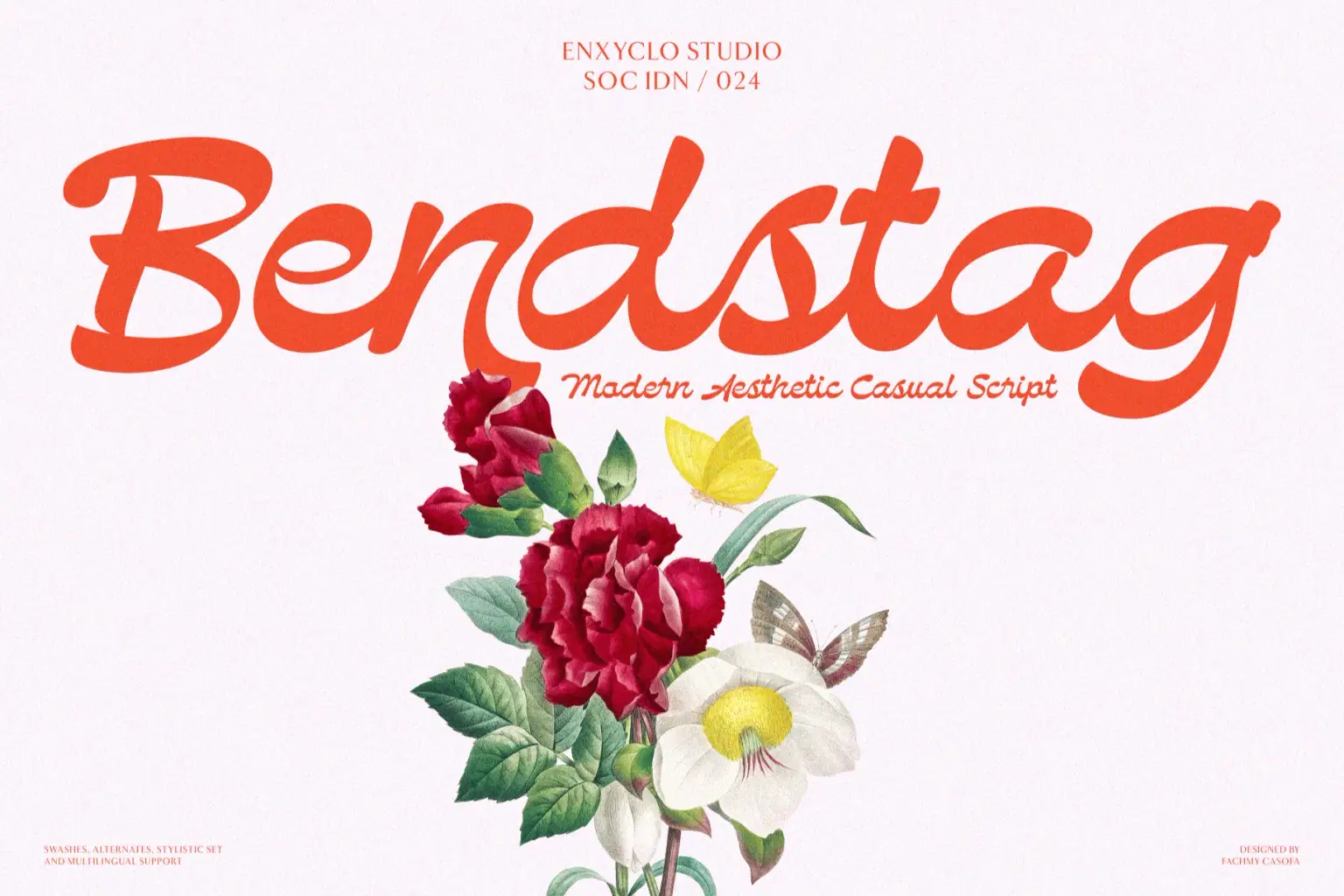
NCL BENDSTAG is a timeless modern bold script font created to bring together luxury, elegance, and confident visual expression. Designed with flowing curves and bold strokes, this typeface delivers a perfect harmony between graceful movement and strong character. The result is a lavish and premium script font that feels rich, stylish, and effortlessly sophisticated. Crafted for modern brands that seek distinction, NCL BENDSTAG transforms typography into a refined statement of identity. Its bold script style creates an eye-catching presence while maintaining a smooth and elegant rhythm, making it ideal for logo design, fashion branding, boutique identities, and premium visual storytelling. Every curve is carefully shaped to create a luxurious aesthetic that feels both contemporary and timeless.
Inspired by the beauty of high-end fashion, cosmetic, skincare, and glamour industries, NCL BENDSTAG brings warmth and personality into every composition. Whether used on product packaging, beauty campaigns, editorial layouts, or elegant brand visuals, this font delivers a rich and aesthetic atmosphere that enhances the emotional value of your design. More than just a script font, NCL BENDSTAG is a visual signature of modern elegance—crafted for creators who want to build luxurious brands, premium logos, and unforgettable visual experiences.
Uppercase & Lowercase Letters
Numeral, Punctuation Marks, Currencies & Symbol Set
Alternate & Stylistic Set
Multilingual Support